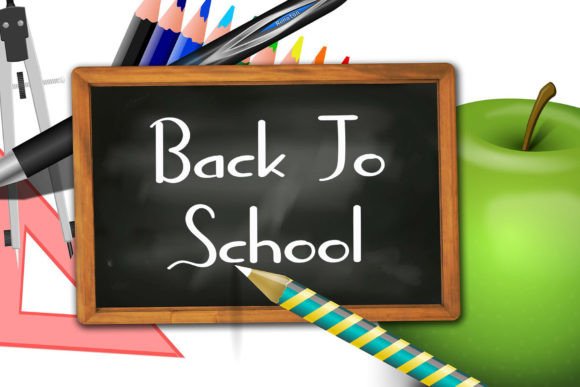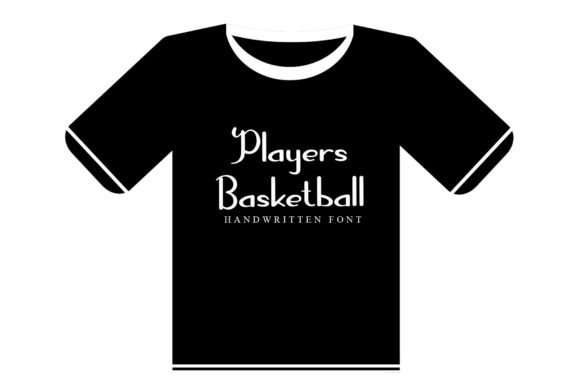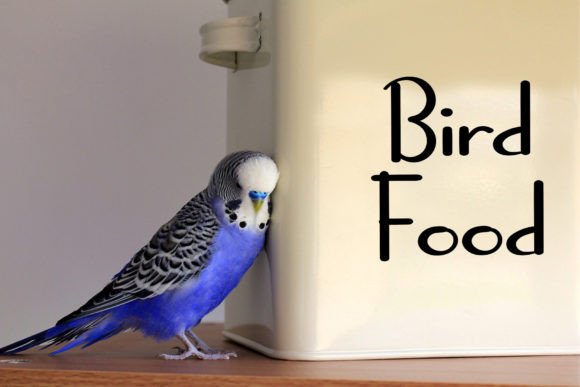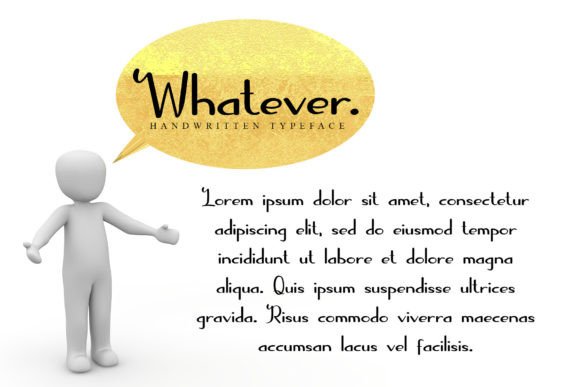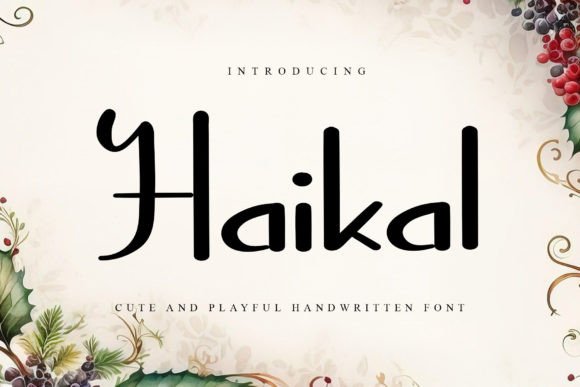
Introducing Haikal Font: Elevate Your Designs with Elegance and Sophistication
Are you a designer or crafter looking for a unique and elegant font to add a touch of sophistication to your creations? Look no further than Haikal Font, a stunning typeface that is perfect for a variety of design projects. From wedding invitations and greeting cards to billboards, logos, and business cards, Haikal Font is the ideal choice for anyone seeking a handwritten touch with a natural, handmade feel.
The Unique Features of Haikal Font
Haikal Font is a one-of-a-kind typeface that boasts a range of distinctive features, making it stand out from other fonts on the market. One of its most notable characteristics is its varied baseline, which gives it a natural, hand-made touch. This feature creates a sense of authenticity and uniqueness, making your designs look more real and spectacular.
Another key feature of Haikal Font is its PUA (Private Use Area) encoding. This means that you can access all glyphs and swashes with ease, giving you complete creative control over your designs. With PUA encoding, you can effortlessly navigate the font’s extensive character set, including ligatures, alternates, and ornaments, to create truly stunning designs.
Haikal Font is an incredibly versatile typeface that can be used for a wide range of design projects. Here are just a few examples of how you can use this beautiful font:
- Wedding Invitations: Add a touch of elegance and sophistication to your wedding invitations with Haikal Font. Its unique and handwritten feel makes it perfect for formal and informal wedding designs.
- Greeting Cards: Create beautiful and heartfelt greeting cards for special occasions such as birthdays, anniversaries, and holidays with Haikal Font.
- Billboards: Make a bold statement with Haikal Font on your billboard designs. Its elegant and eye-catching appearance is sure to grab the attention of your audience.
- Logos: Use Haikal Font to create a unique and memorable logo for your business or brand. Its handmade touch and natural feel make it perfect for businesses seeking a distinctive and personalized look.
- Business Cards: Stand out from the crowd with Haikal Font on your business cards. Its elegant and sophisticated appearance makes it perfect for professionals seeking to make a lasting impression.
Why Choose Haikal Font?
So why choose Haikal Font for your design projects? Here are just a few reasons why this font stands out from the rest:
- Unique and Elegant: Haikal Font is a one-of-a-kind typeface that boasts a unique and elegant appearance, making it perfect for designers and crafters seeking a distinctive look.
- Handmade Touch: With its varied baseline and natural feel, Haikal Font has a handmade touch that sets it apart from other fonts on the market.
- PUA Encoded: Haikal Font’s PUA encoding makes it easy to access all glyphs and swashes, giving you complete creative control over your designs.
- Versatile: Haikal Font can be used for a wide range of design projects, from wedding invitations and greeting cards to billboards, logos, and business cards.
In conclusion, Haikal Font is a stunning typeface that is perfect for designers and crafters seeking a unique and elegant font with a natural, handmade touch. With its varied baseline, PUA encoding, and versatility, Haikal Font is the ideal choice for a wide range of design projects. Whether you’re creating wedding invitations, greeting cards, billboards, logos, or business cards, Haikal Font is sure to elevate your designs and make them stand out from the crowd.